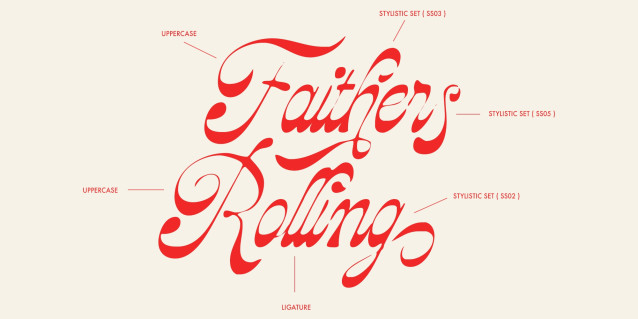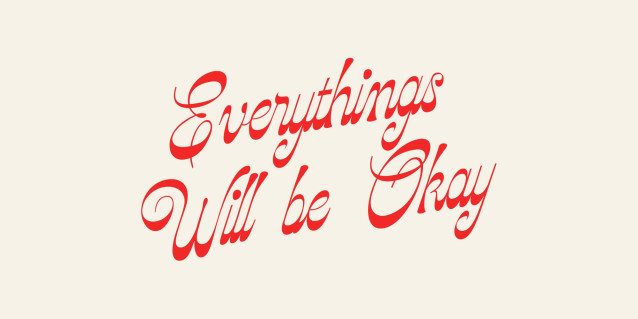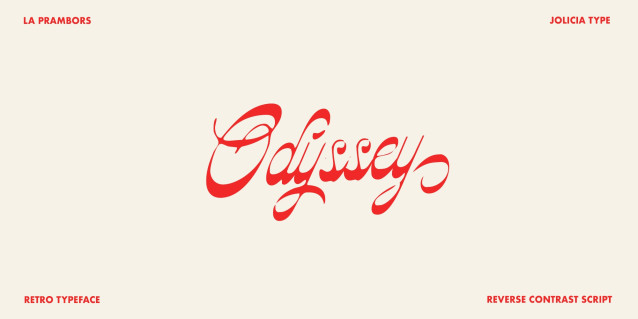
La Prambors Font
La Prambors Font is a bold reverse contrast script font inspired by retro vibes and vintage charm. Its unique character blends playful curves with unexpected stroke weight, creating a strong personality that stands out in logos, packaging, posters, and nostalgic branding.